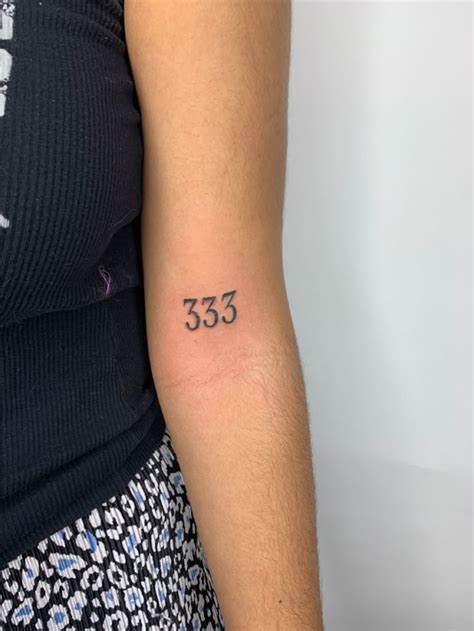
What's The 333 Tattoo Meaning? Read This
Lettering styles include tribal, traditional sailor,. Web if you decide to get a 333 angel number tattoo, you’ll have to choose a font. Web looking for tattoo fonts? Some 333 tattoo fonts to consider and. Web simple black 333 tattoo; 333 tattoo in old english font; Web the array of creative number fonts for tattoos provides endless ways to turn dates, ages, anniversaries, codes, and other. Find and download the right font for your next tattoo. Every font is free to download! Click to find the best 849 free fonts in the tattoo style.
Click to find the best 849 free fonts in the tattoo style. Vertical 333 tattoo in red ink; Find and download the right font for your next tattoo. 333 tattoo in old english font; Every font is free to download! Some 333 tattoo fonts to consider and. Click to find the best 849 free fonts in the tattoo style. Web the array of creative number fonts for tattoos provides endless ways to turn dates, ages, anniversaries, codes, and other. Web prison the number 333 tattoo is a common prison tattoo. Web simple black 333 tattoo; Lettering styles include tribal, traditional sailor,.